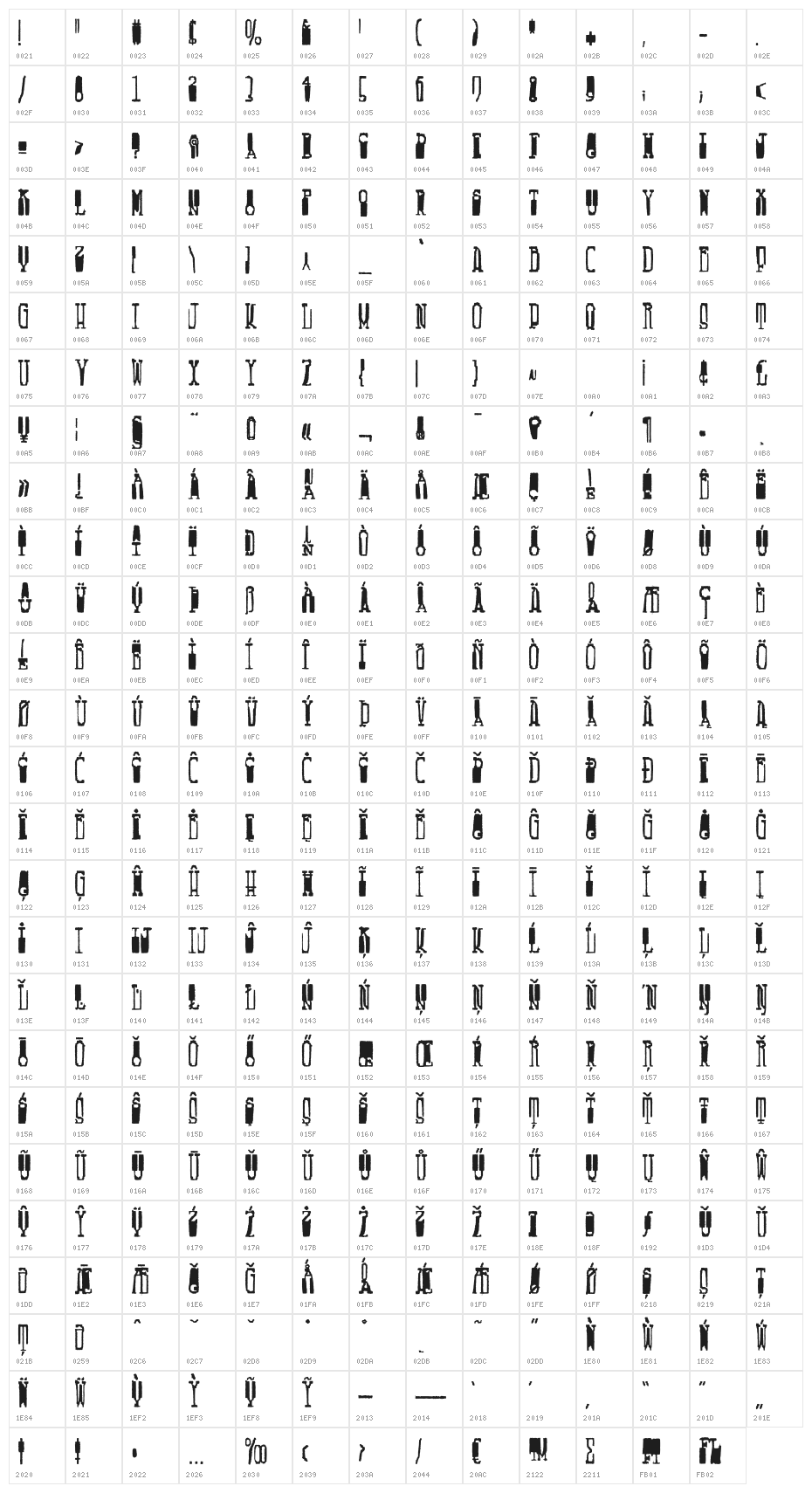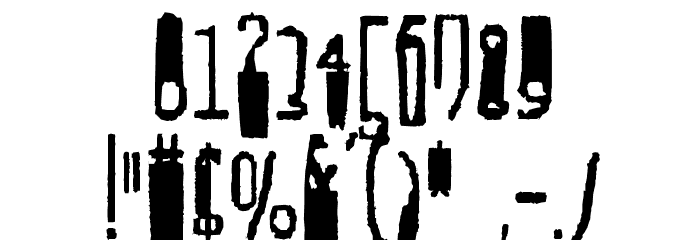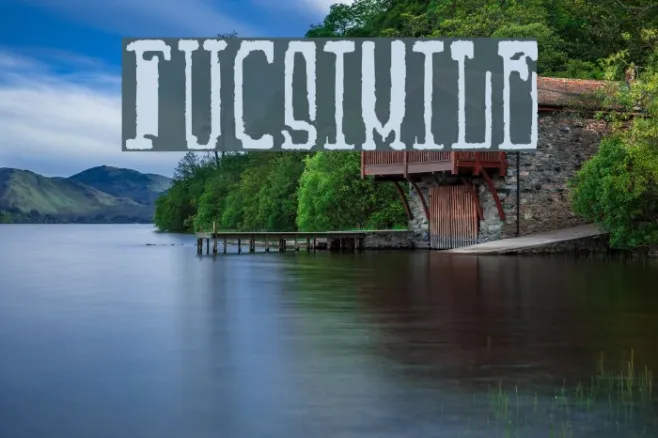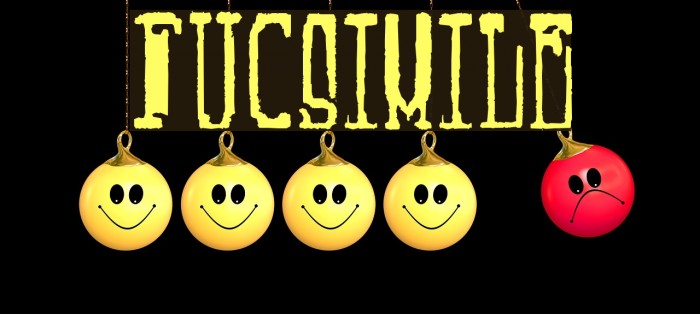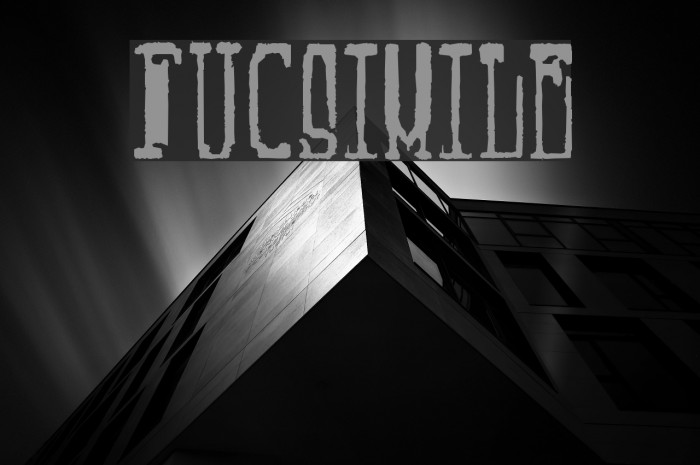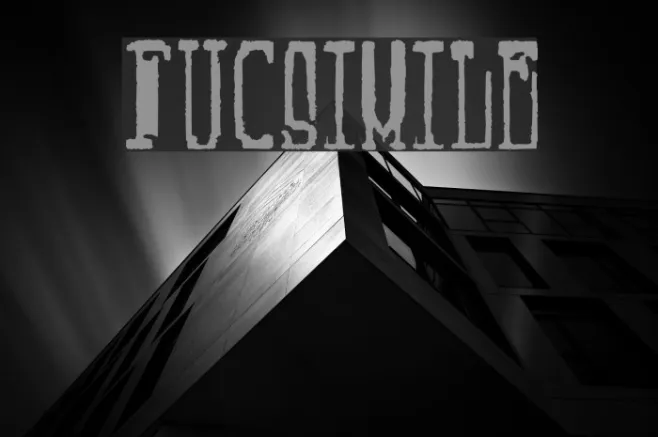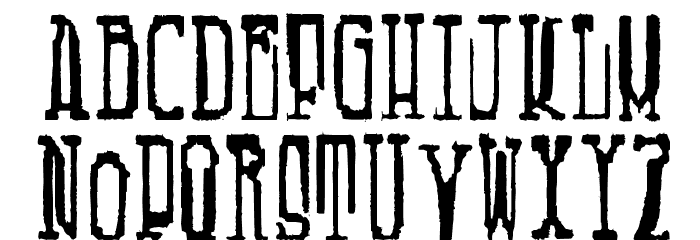
Fucsimile Font
Fucsimile Description
This font features a bold and dramatic style with high contrast between thick and thin strokes, creating a striking visual impact. The uppercase letters are particularly prominent, with a blocky and somewhat distressed appearance that adds a vintage or retro feel. The lowercase letters maintain a consistent style, complementing the uppercase with their own unique flair. Numbers and special characters follow the same bold and textured design, making them stand out. The overall aesthetic is reminiscent of old western or vintage poster fonts, making it ideal for projects that require a strong, eye-catching typeface.